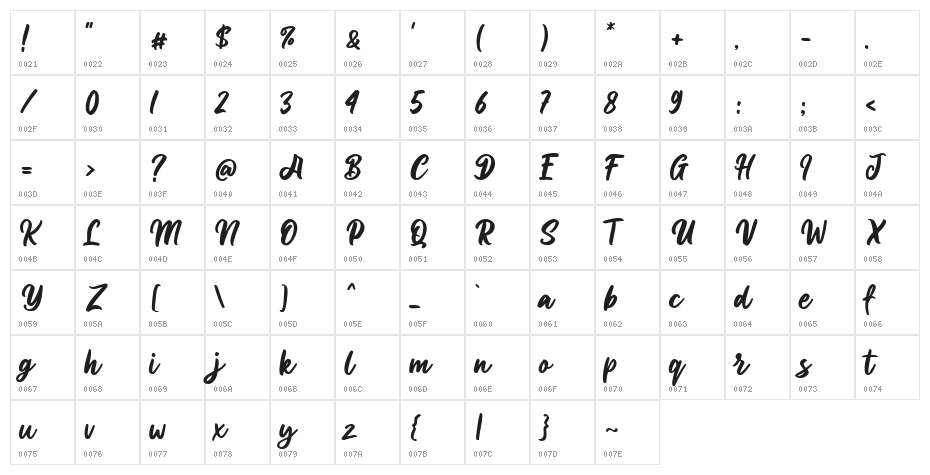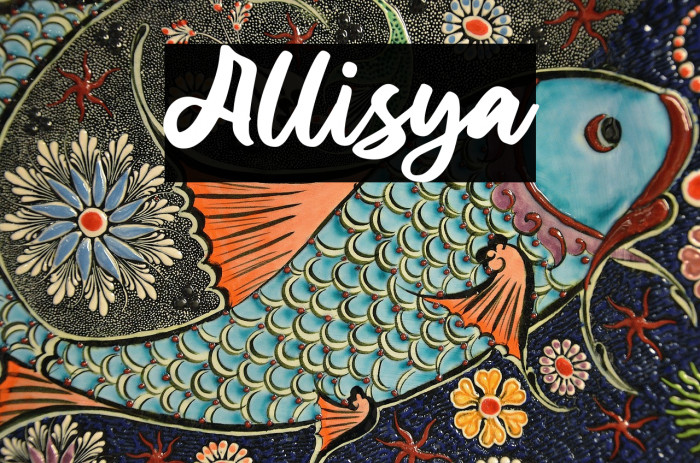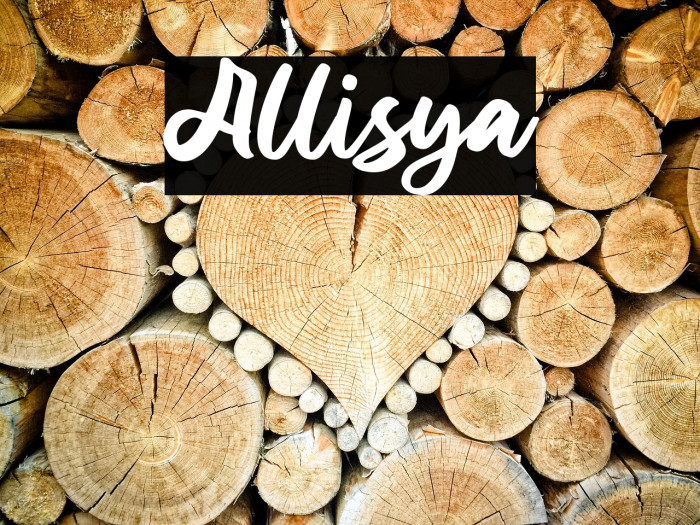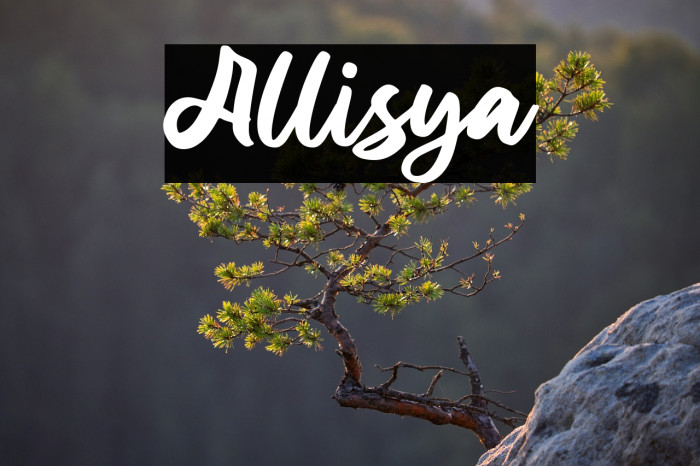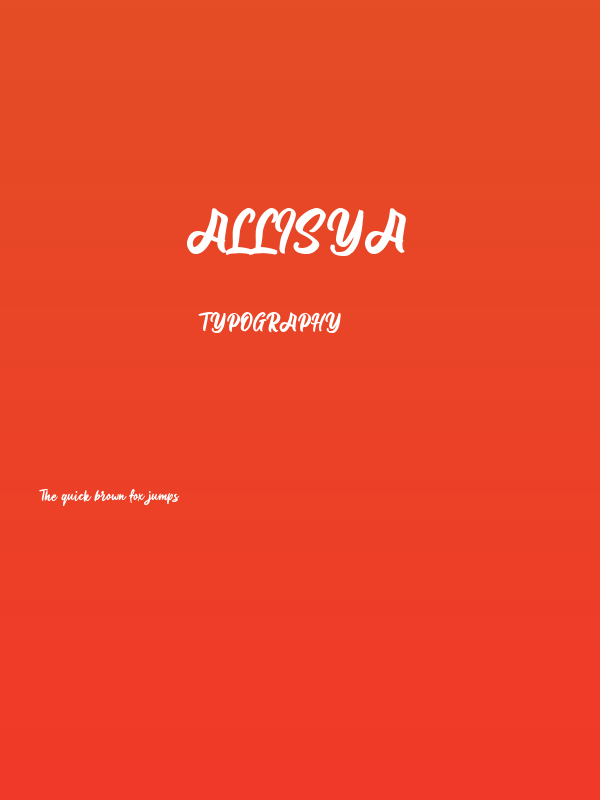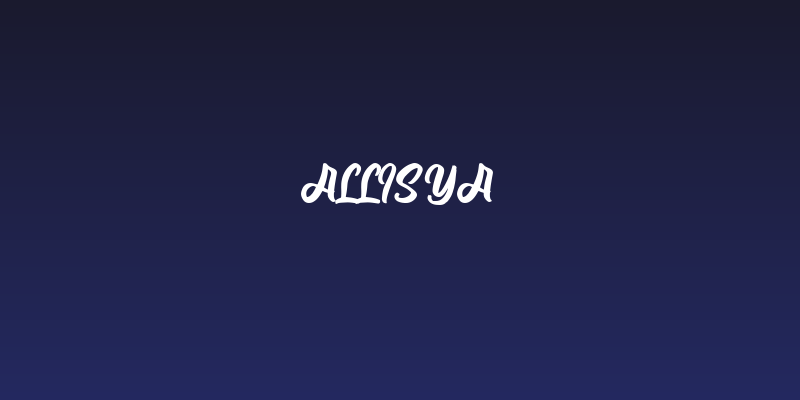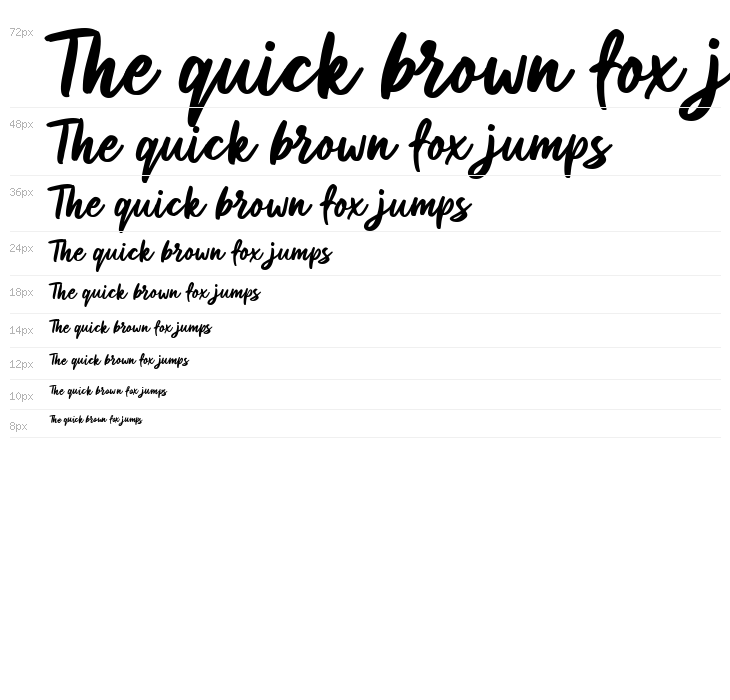
Allisya Font
Allisya Description
This font features a bold and expressive script style, characterized by its flowing, cursive letterforms that convey a sense of elegance and dynamism. The strokes are thick and consistent, giving it a strong presence on the page. The uppercase letters are slightly more formal, while the lowercase letters maintain a casual and approachable feel. The numerals are clear and legible, matching the overall style of the alphabet. Special characters are included, maintaining the same bold and fluid aesthetic. This font is ideal for creating eye-catching headlines or logos that require a touch of sophistication and flair.
| Proposed Projects | Ideal for branding, logo design, wedding invitations, and elegant signage. |